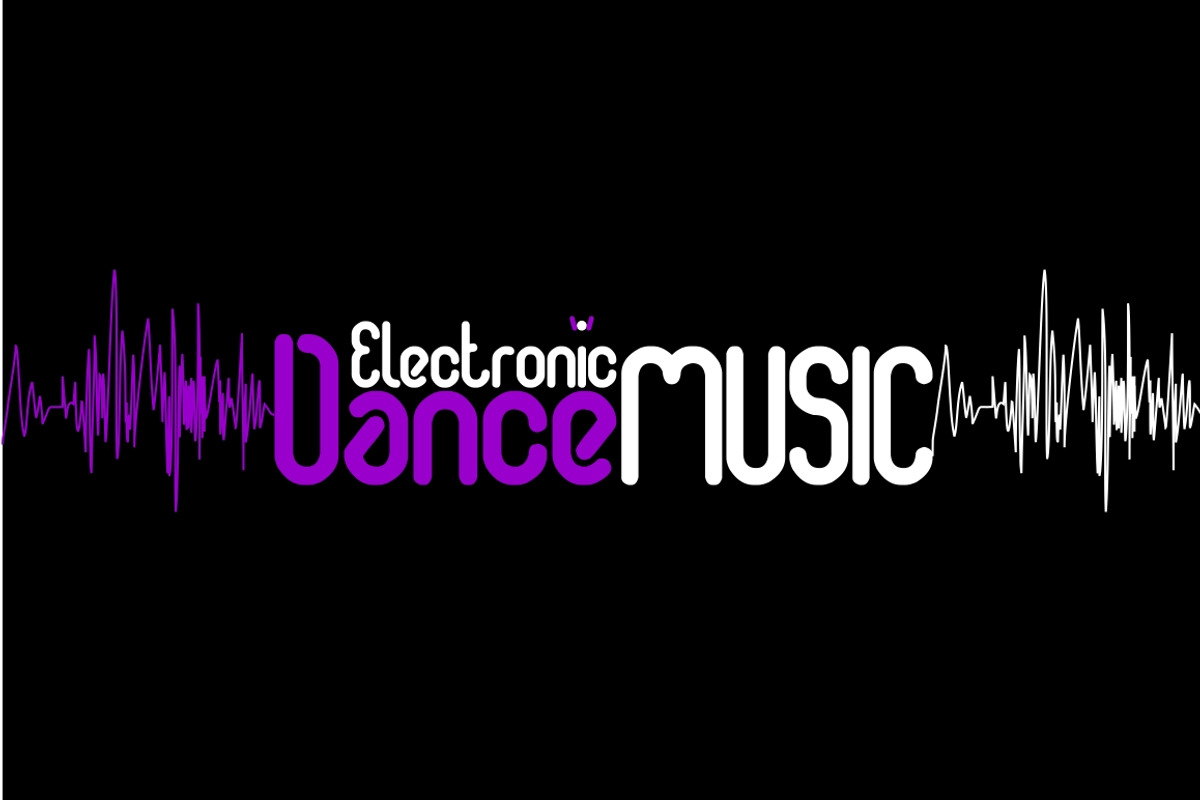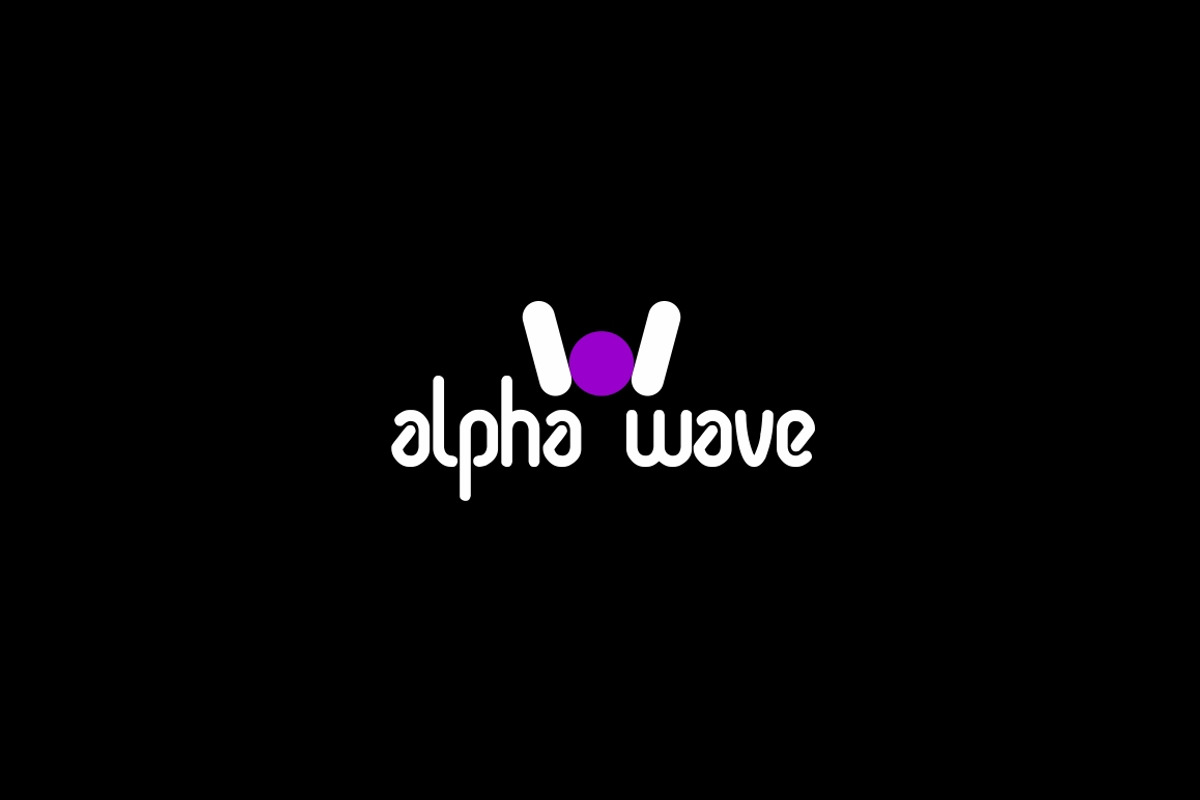
airwaves font
airwaves font by weknow is a font selected for branding, posters, packaging, typography.
Why airwaves font is worth a look
airwaves font by weknow fits naturally into Branding, posters, packaging, typography.